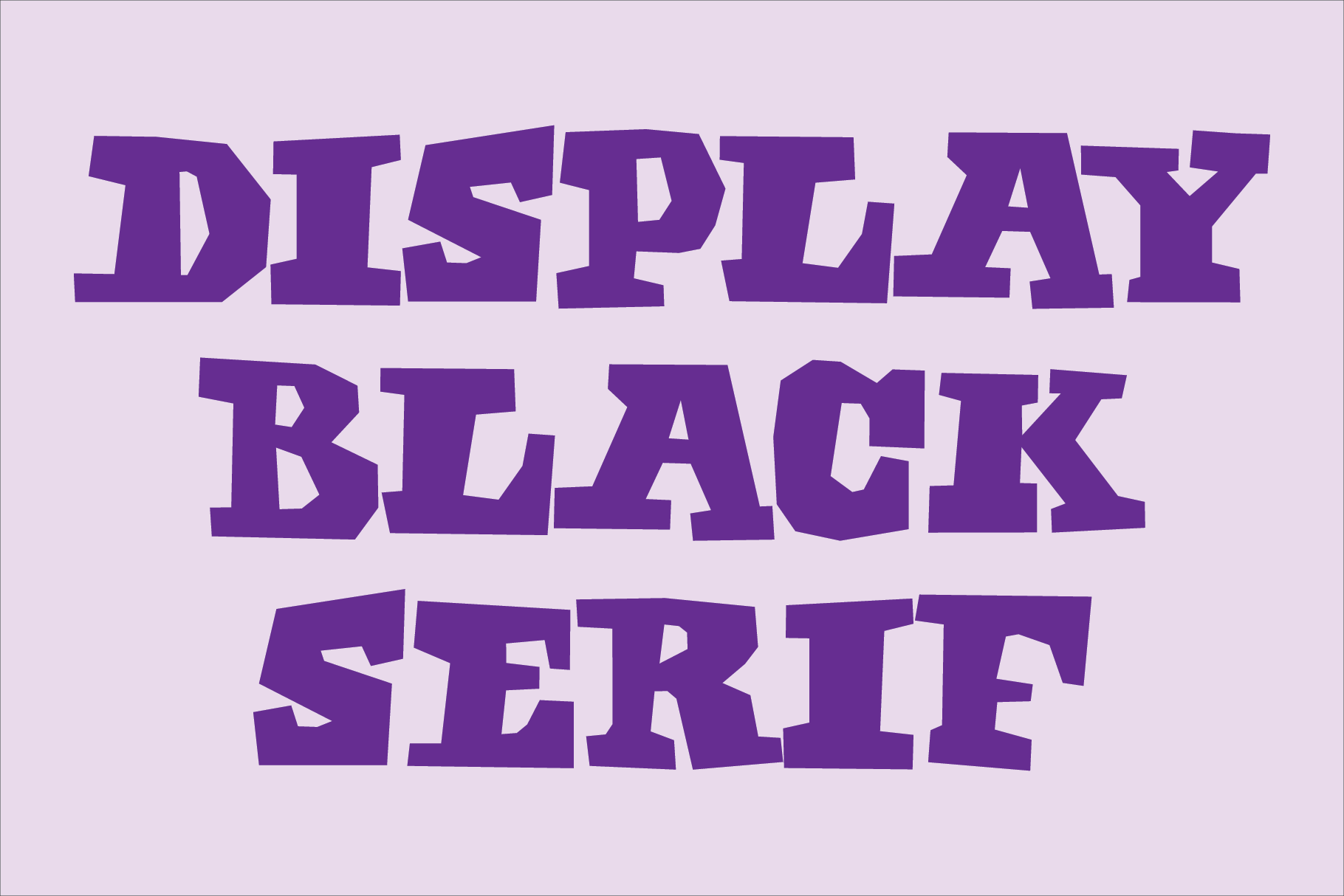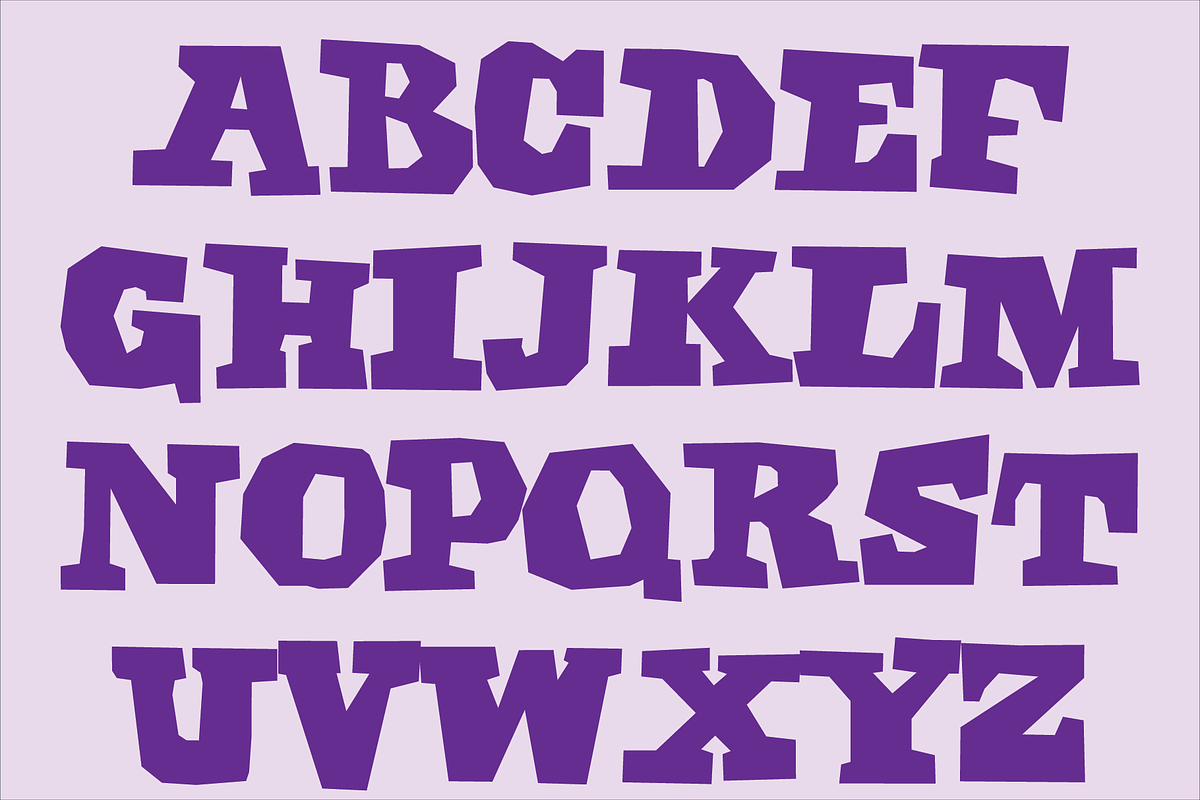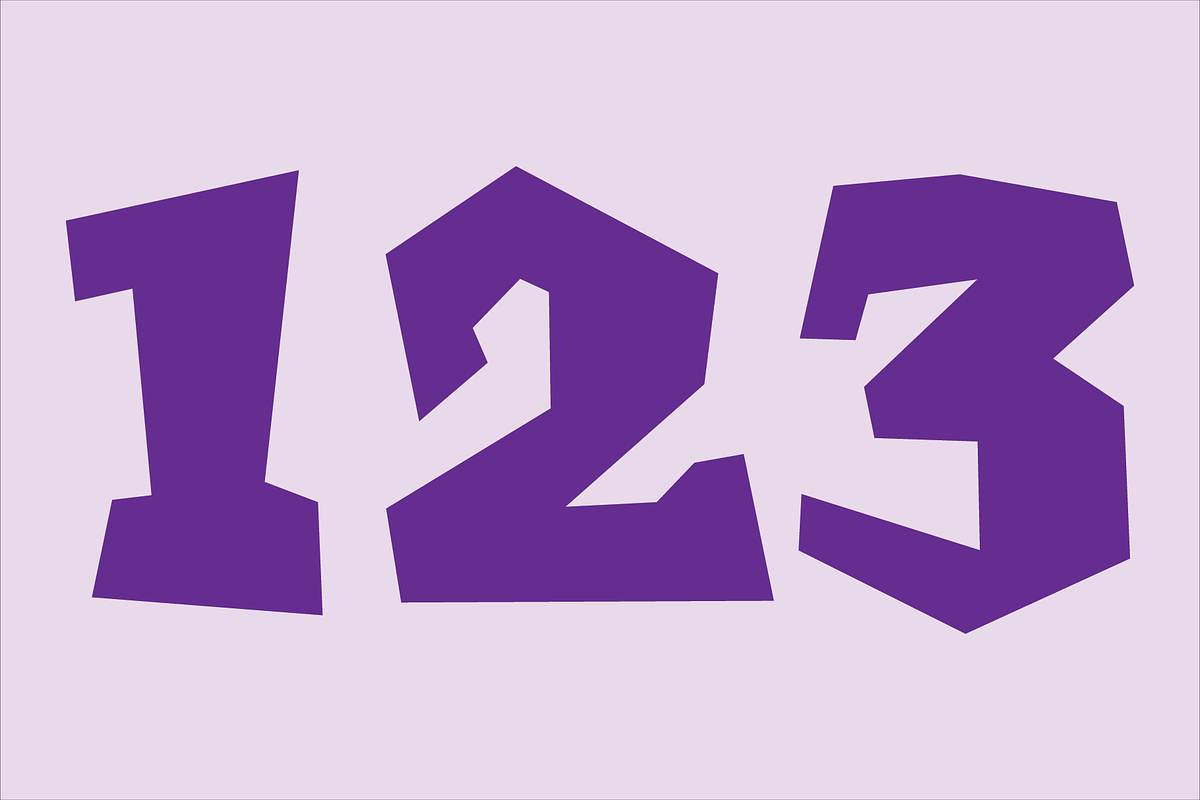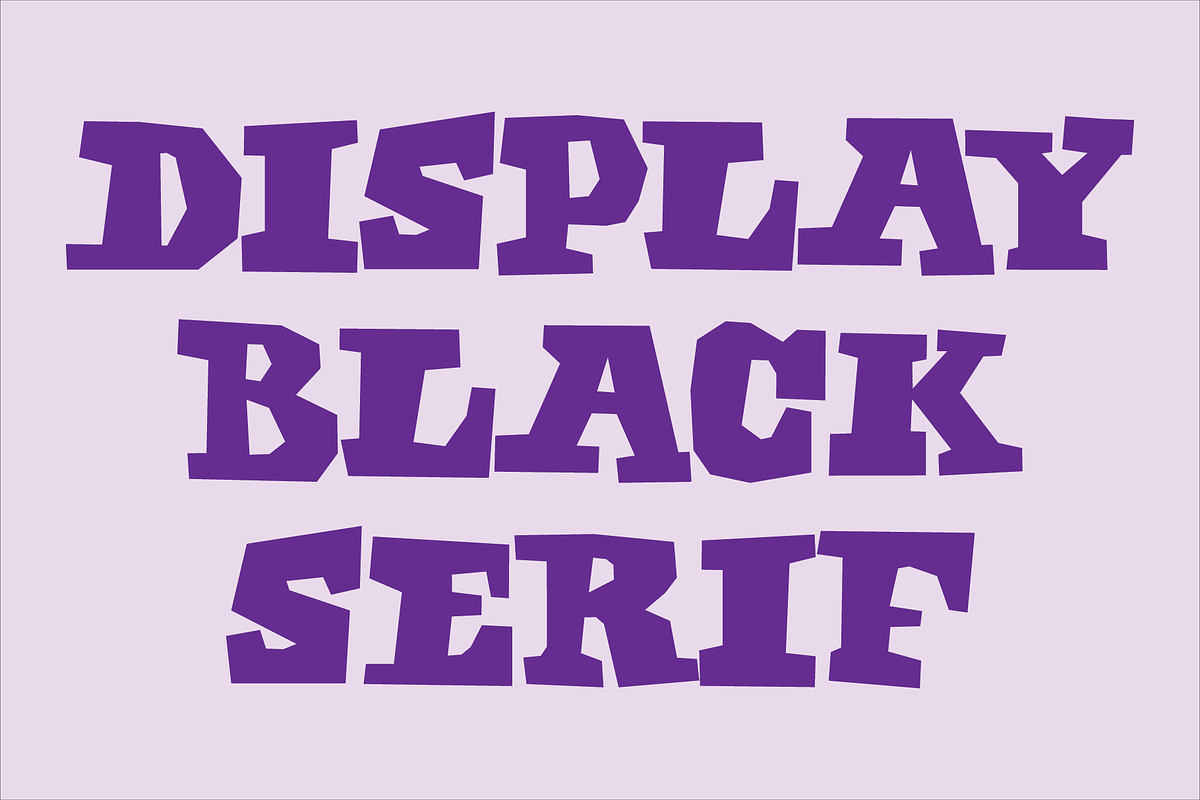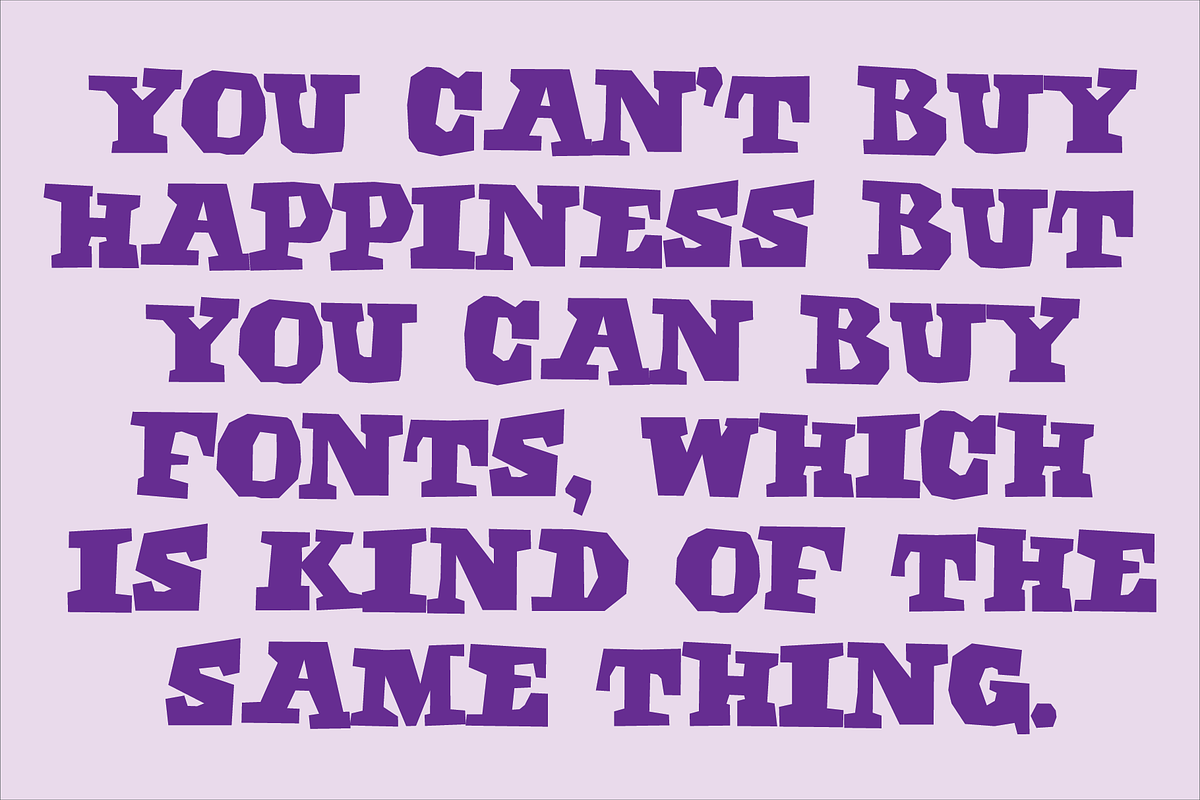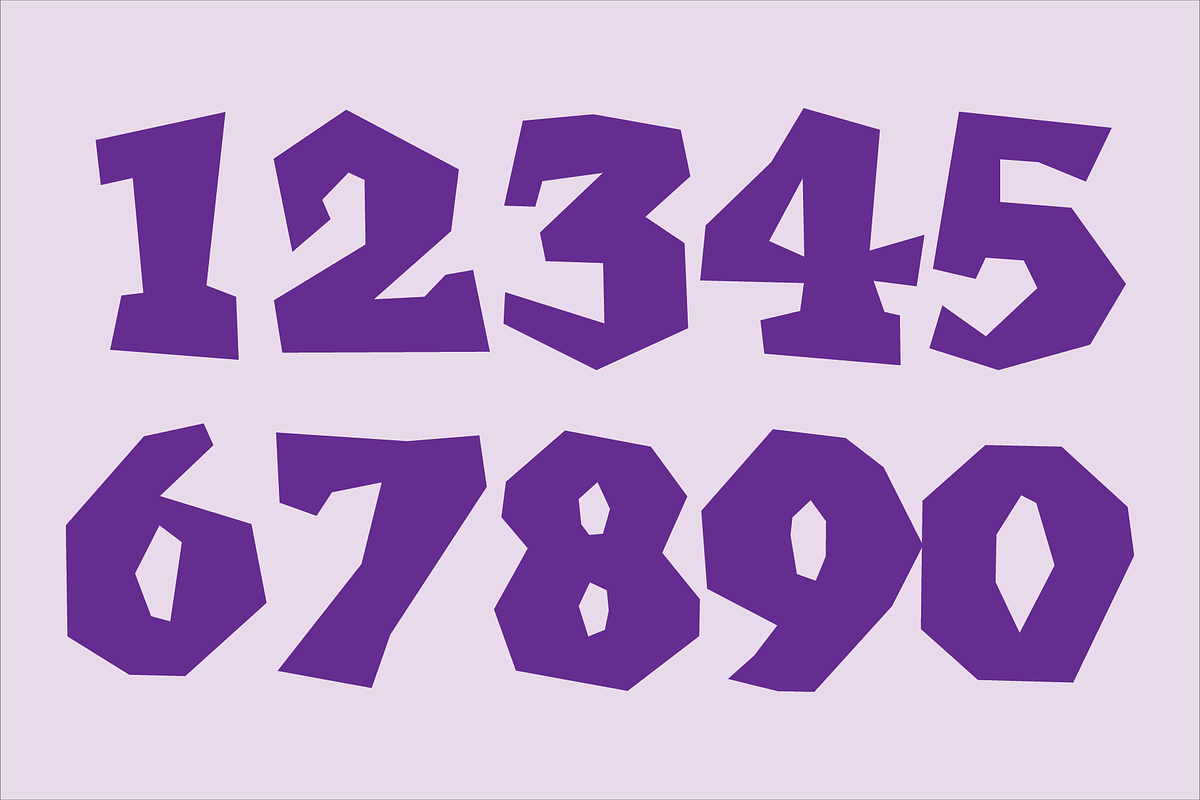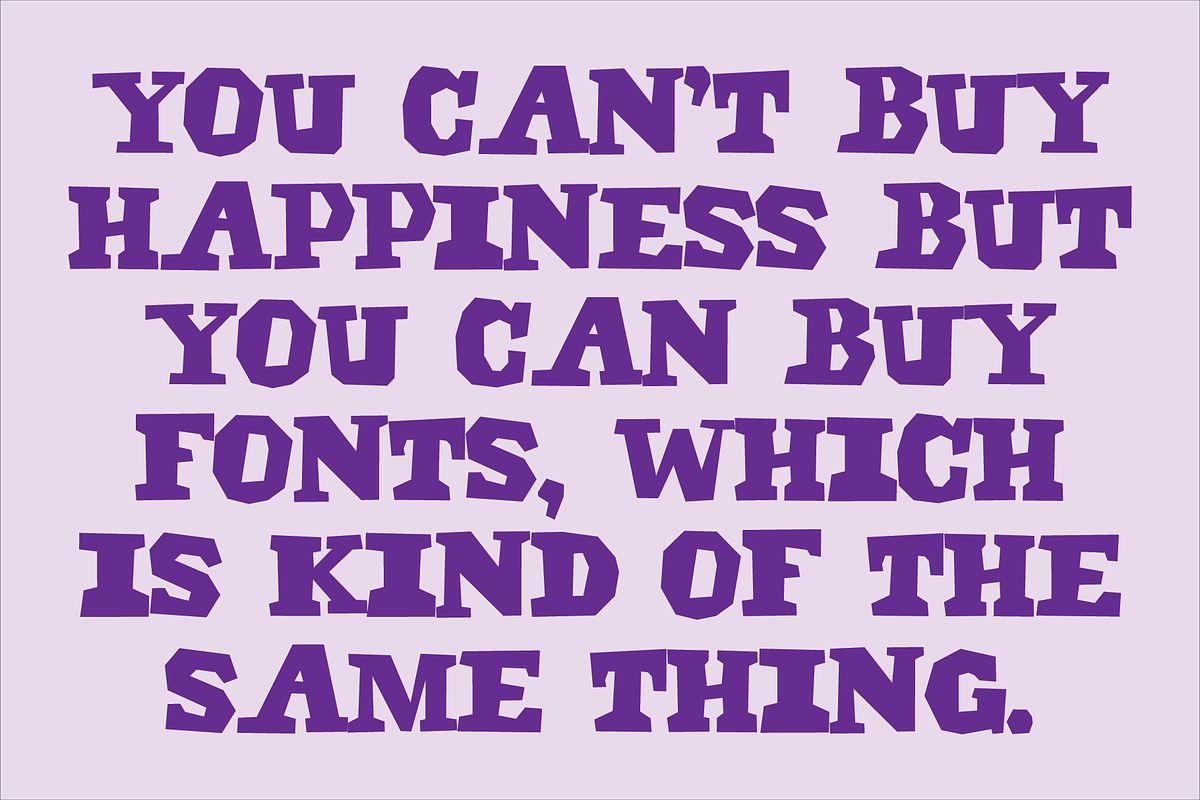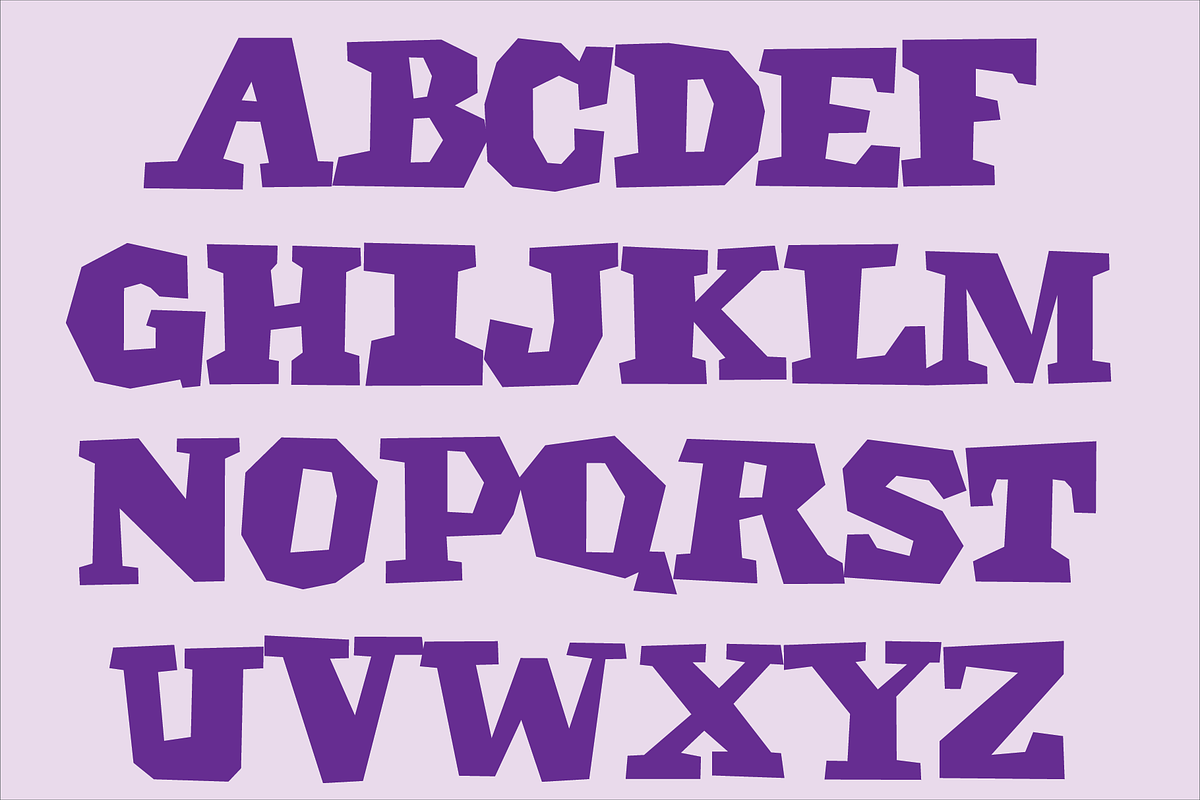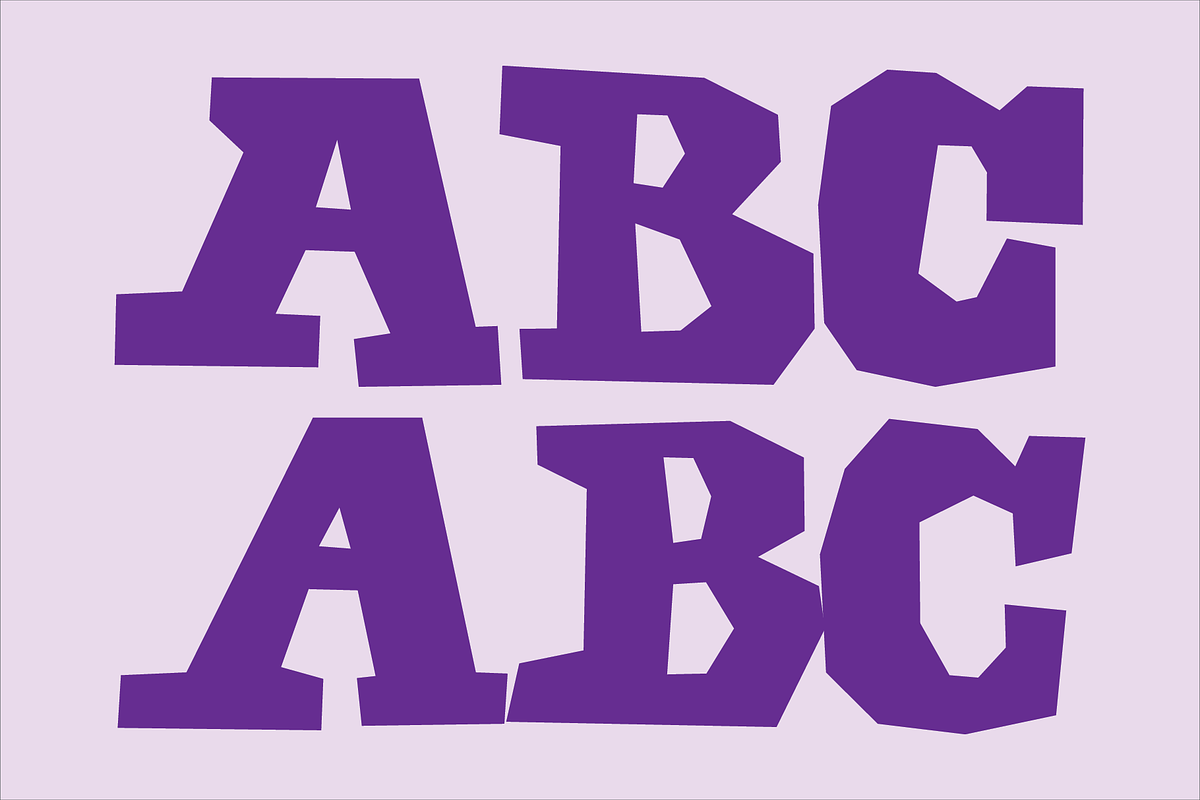
Display Black Serif Font
Display Black Serif is a display font not intended for text use. It was designed specifically for display, headline, logotype, branding, and similar applications. Display Black Serif has an uppercase alphabet located under the character + shift keys and a complete set of alternate uppercase characters located under the character set keys; numbers, dollar, pound and euro signs, and basic punctuation.